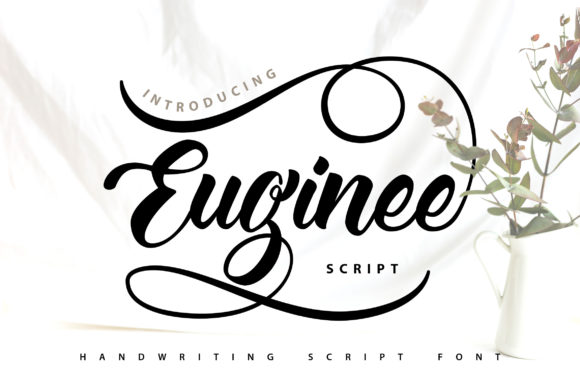
Introducing Euginee, the script font that captures the vibrant energy of Las Vegas, the city that never sleeps. Inspired by the iconic neon signs that light up the night sky, Euginee is a captivating fusion of glamour and edginess, perfect for adding a touch of Vegas magic to any design.
Crafted with precision and flair, Euginee's flowing lines and expressive curves evoke the excitement and indulgence of Sin City. Whether you're designing a poster for a grand opening, a social media campaign for a luxury brand, or a personal project that demands attention, Euginee is the font that will make your vision shine.
With its effortless style and undeniable charisma, Euginee transforms ordinary words into extraordinary statements. Its captivating presence commands attention, inviting viewers to immerse themselves in the allure of Vegas. From the red carpets to the glittering casinos, Euginee embodies the essence of this unforgettable city, bringing a taste of its allure to every creation.
So, embrace the spirit of Las Vegas with Euginee, the font that will ignite your designs with passion, glamour, and the unmistakable energy of the city that never sleeps. Download Euginee today and let your words dance with the rhythm of Vegas!